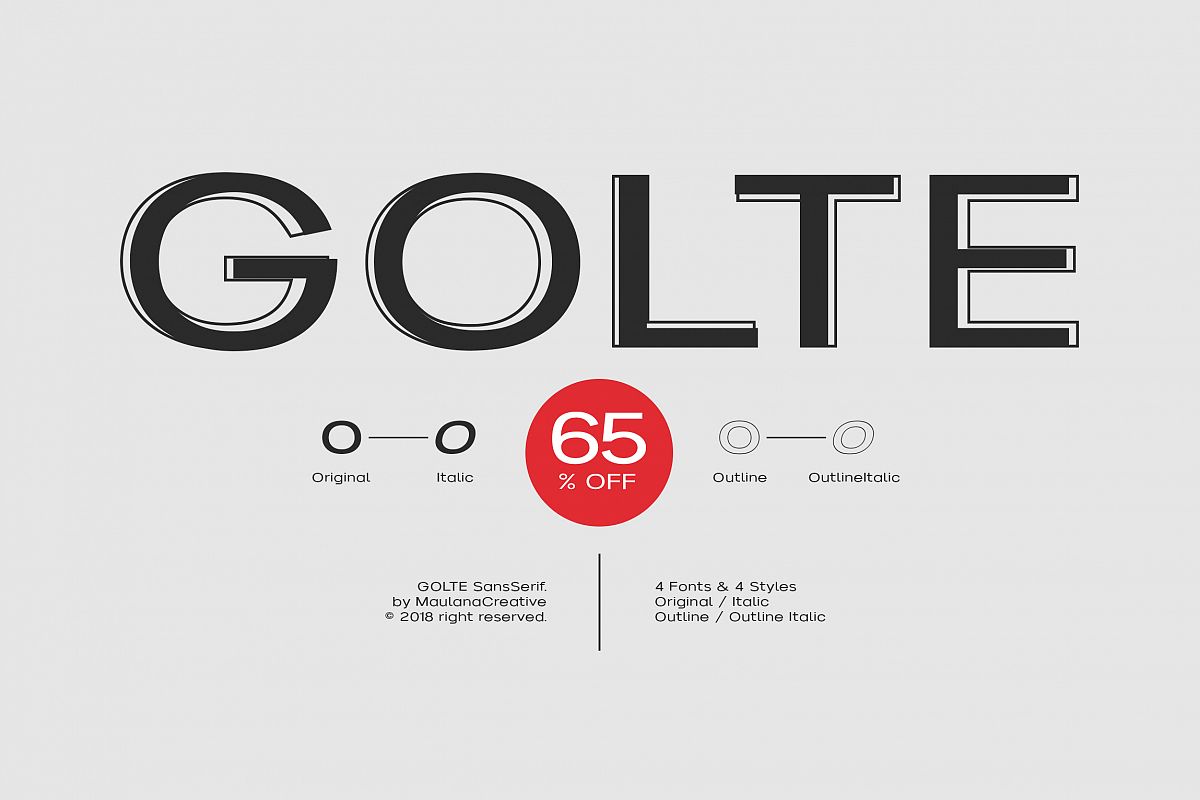
A display typeface is a typeface that is intended for use at large sizes for headings, rather than for extended passages of body text. Display typefaces will often have more eccentric and variable designs than the simple, relatively restrained typefaces generally used for body text. They may take inspiration from other genres of lettering, such as handpainted signs, calligraphy or an aesthetic appropriate to their use, perhaps ornamented, exotic, abstracted or drawn in the style of a different writing system.This font available: